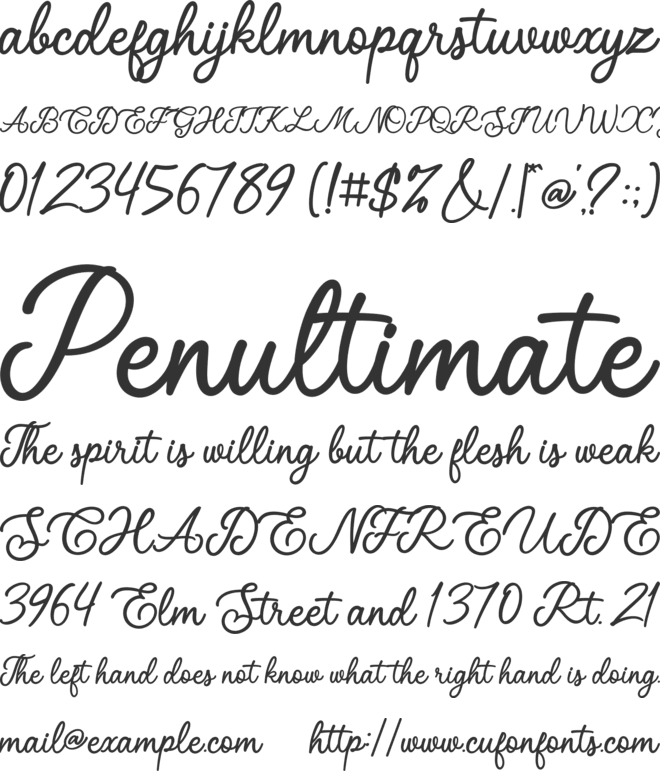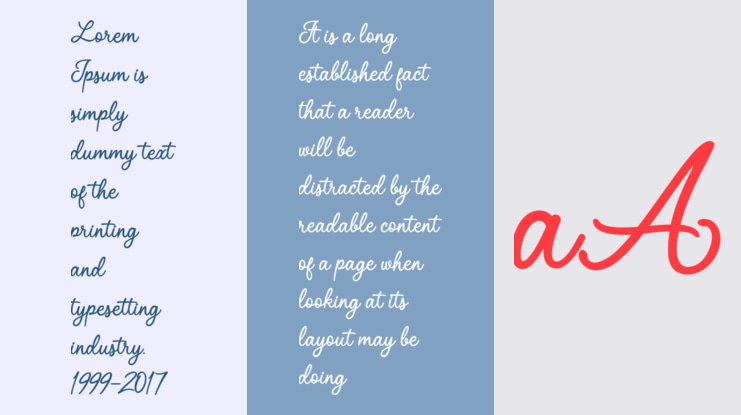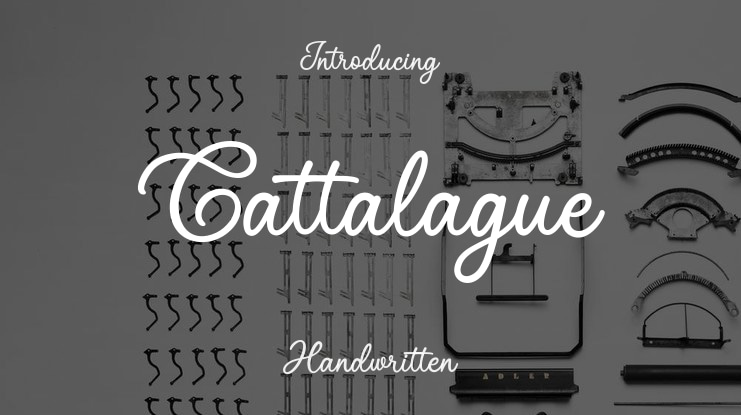
Cattalague Font
The Perfect Script Touch for Your Designs
Cattalague a Script Font that adds a Bold and Versatile touch to everything from branding and social media to invitations and packaging.